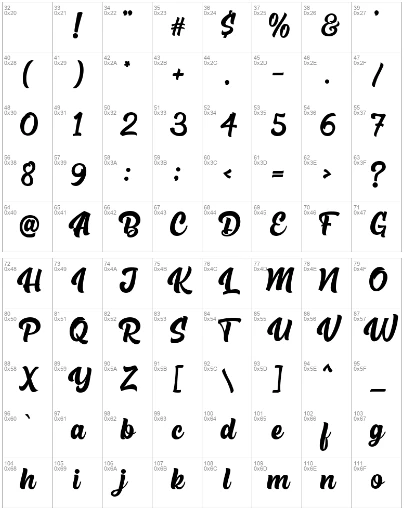
The Rughton Bold Script Font is a powerful, bold script created by scratching the hand to achieve natural writing. It will be extremely intriguing if the basic style of the hand-lettering script is supplemented with a variety of Alternates and also Stylistic Sets that are highly appropriate. Rughton is a popular script typeface with distinct characteristics and a highly legible style. The font is designed and shared by fontspace
This is a light and bold script typeface with a modern feel. Rughton is a popular script typeface with distinct characteristics and a highly legible style. This is a light and bold script typeface with a modern feel. Another fantastic feature of this calligraphy font is that it is available for personal usage at no cost. Rughton Script Font is suitable for use on the web as well as in print. As a result, using this refined font in the creation of a web template or a design project is a good idea. I’m hoping that this new script font will assist designers in creating stunning designs.
Packaging, logos, labels, posters, shirt designs, wisdom quotes, bulletins, typography, and many other media, especially with a retro or vintage style, are all great places to use this font. Make any DIY project come to life with this beautiful and unusual typeface!